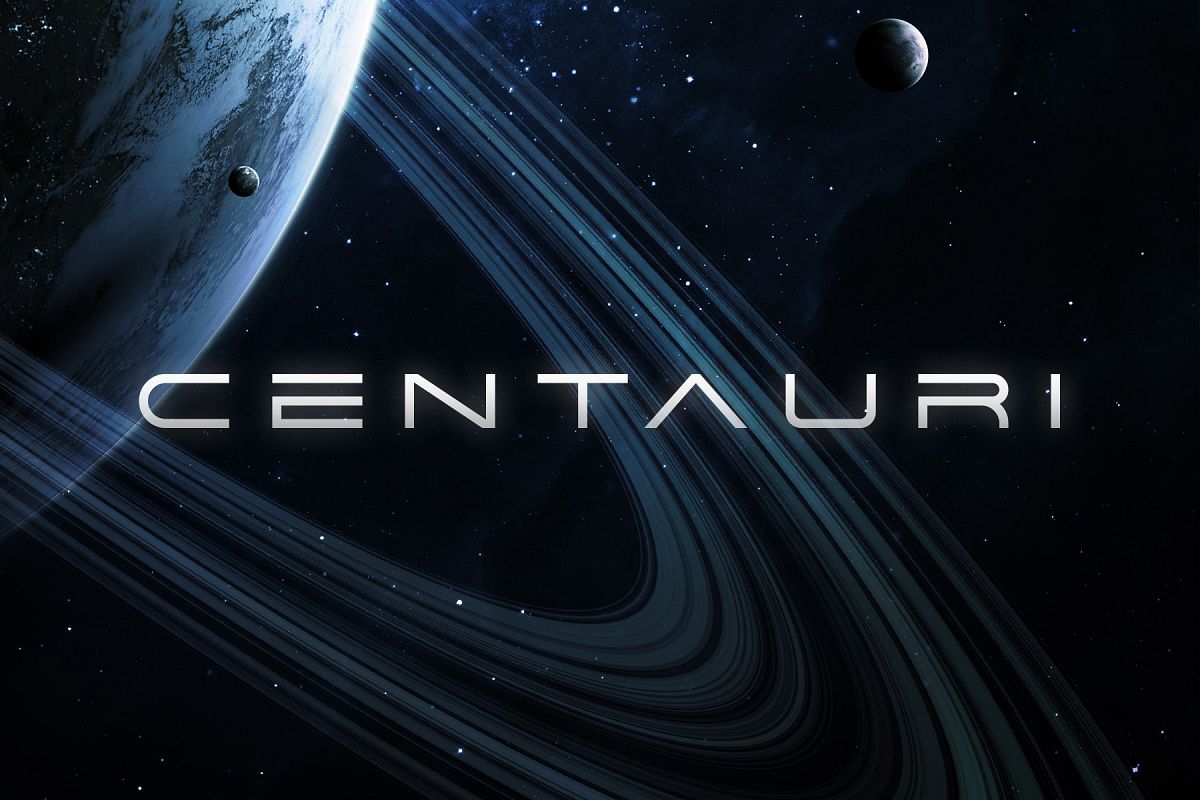
Centauri Typeface
Centauri
Centauri is a futuristic font with minimalist, wide letters. It includes English uppercase letters, alternate letters, basic punctuation and numbers.